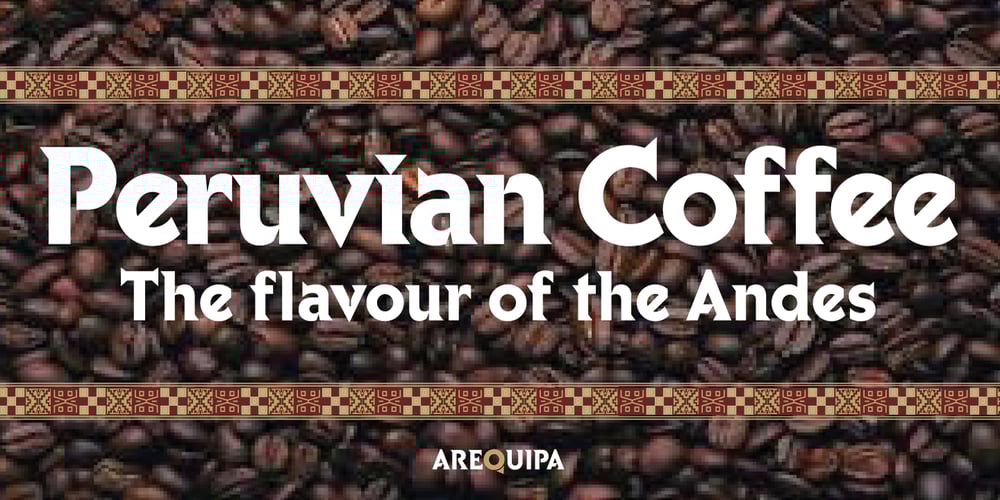
Arequipa Font Family was designed by Alan Meeks and published by Alan Meeks. Arequipa contains 3 styles and family package options. Arequipa is a Latin font with serifs generally top left. The style is influenced by Aztec and Inca designs the Bold weight is excellant for Headline and the lighter weights work well in limited text. The geometric shape of the serifs, ij dots, full point, comma and cap Q give the font an unusual and distinctive look.